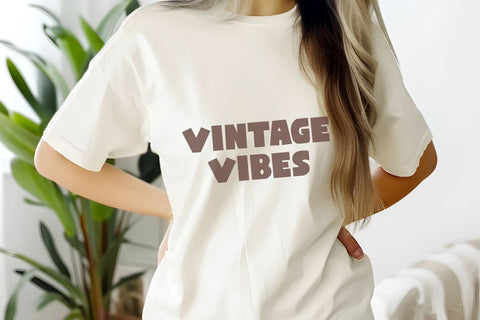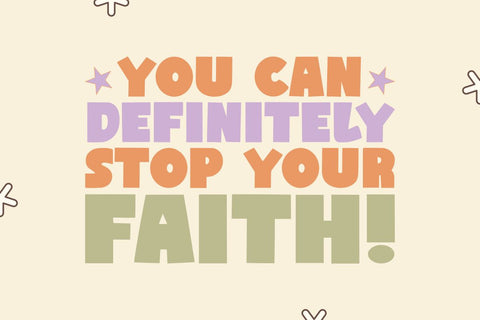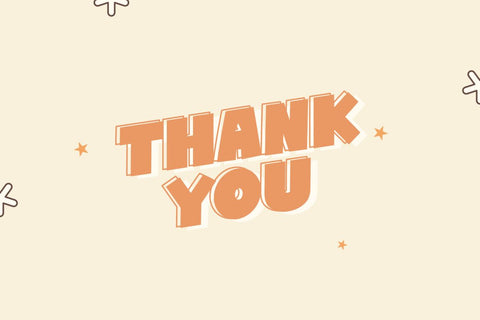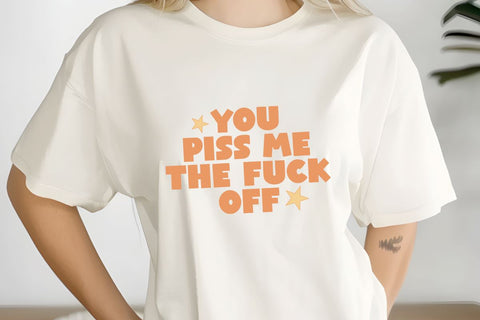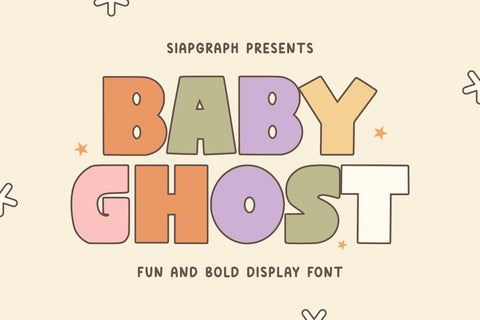
Baby Ghost - Fun and Bold Display Font
Baby Ghost is a fun and bold display font. this font is ready to be used in any project. Very suitable for logotype, Stickers, Packaging design, Cricut Project, headlines, brand identity, t shirt or apparel industry, posters, magazines, books, YouTube, Instagram, websites, or any of your creative design projects.